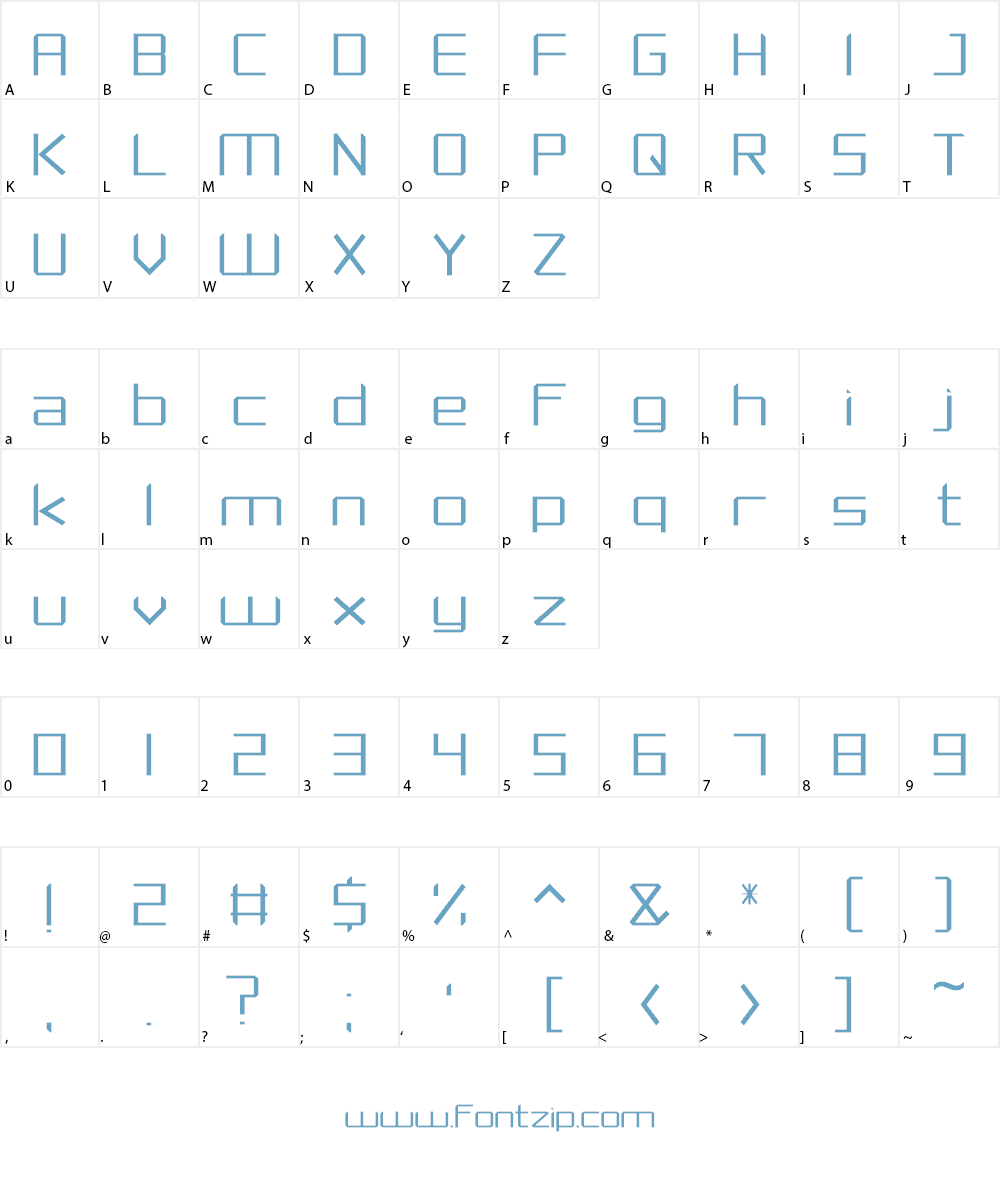
This typography was created based the machine structures, the angles make 45º and 90º for simulated artificial and industry design, this typography is part of big Maken typography design.